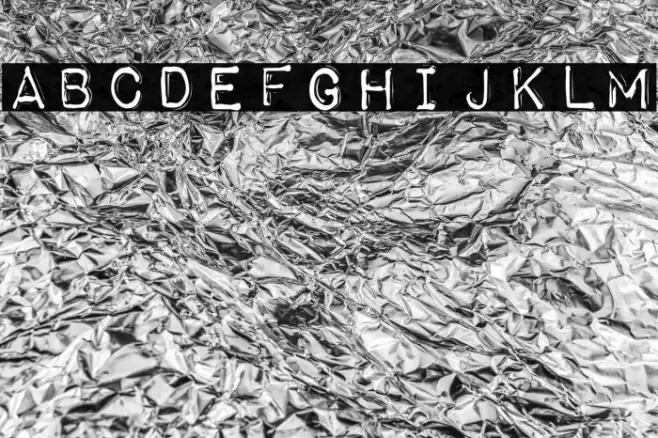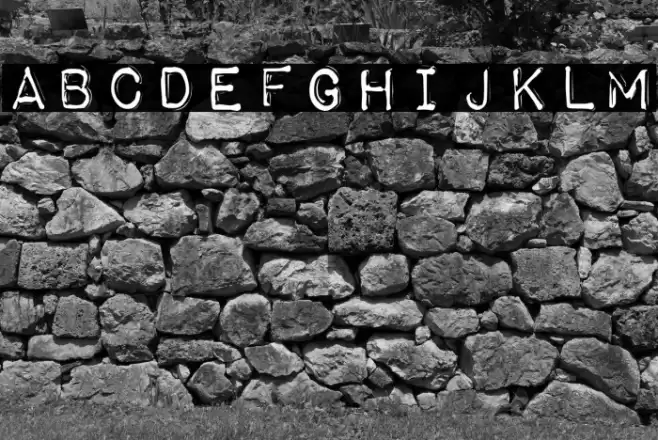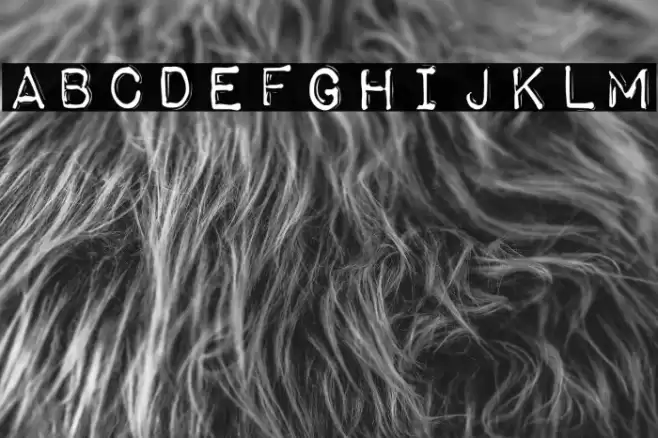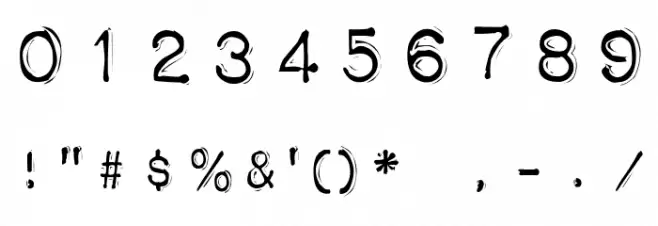
Impact Label Reversed Font
Impact Label Reversed Description
This font features a bold, distressed style with a unique reverse stencil effect. Each character appears as if it has been stamped or printed, with irregular edges and a slightly worn appearance, giving it a rugged, industrial feel. The uppercase and lowercase letters maintain a consistent height, while the numbers and special characters follow the same stylistic approach. The font's design is reminiscent of vintage labels or signage, making it ideal for projects that require a touch of retro or grunge aesthetics. Its boldness ensures readability, while the distressed effect adds character and uniqueness.
A bold, distressed font with a reverse stencil effect, ideal for vintage or industrial designs from Decorative fonts.
- Font: Impact Label Reversed
- Proposed Projects: Perfect for creating vintage labels, industrial-themed posters, album covers, or branding that requires a rugged, retro look.
- Overall Style: Vintage